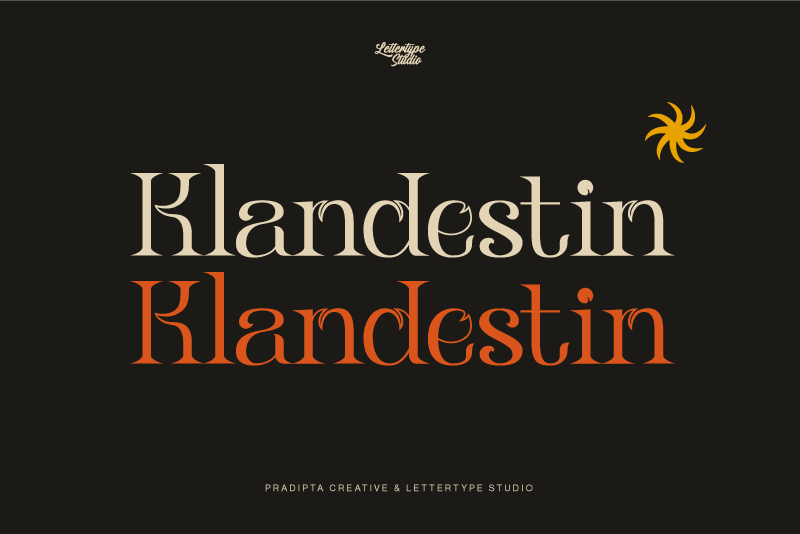
Klandestin Font
About Klandestin
Klandestin was a modern, classic, unique feel serif font with a stand-out style.
This font will be perfect for your logo design, branding, clothing, signage, posters, wedding invitations, cosmetics or fashion and so much more!
Klandestin will help your project or brand have a luxurious, classic, modern, and stunning.